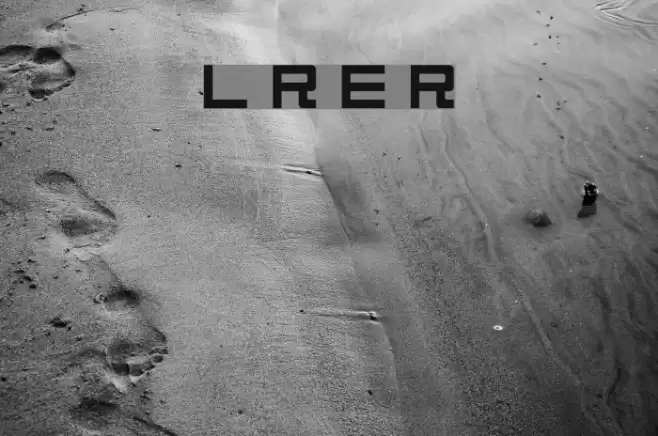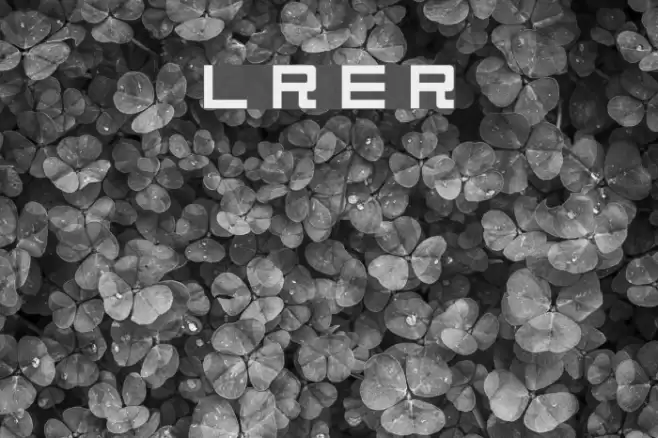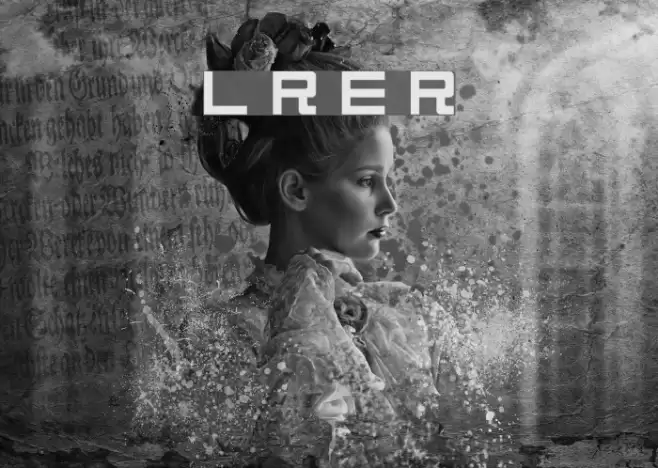
Linesquare Rounded Extended Regular Font
Linesquare Rounded Extended Regular Description
This font features a modern, geometric design with rounded edges, giving it a friendly yet futuristic appearance. The characters are constructed with a consistent line weight, creating a uniform and clean look. The extended width of the letters provides a spacious feel, enhancing readability. The rounded corners soften the overall aesthetic, making it suitable for both digital and print media. The font includes a full set of uppercase and lowercase letters, numbers, and a variety of special characters, ensuring versatility in various design applications.
A modern, geometric font with rounded edges and extended width for a clean, friendly look from Uncategorized fonts.
- Proposed Projects: Ideal for tech branding, digital interfaces, modern advertising, and futuristic design projects.
- Width: Expanded
- Use Case: Headlines, Logos, Digital Interfaces